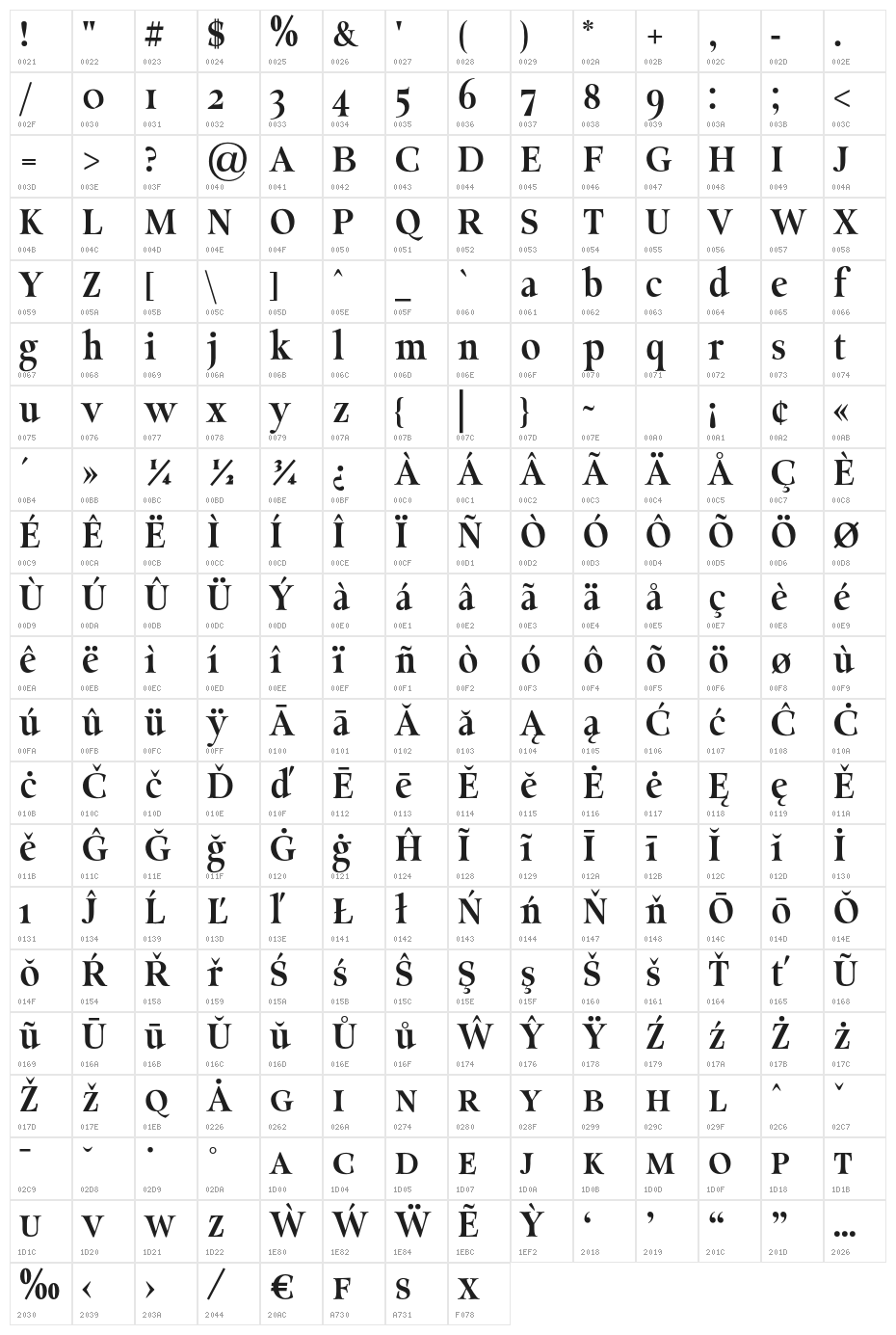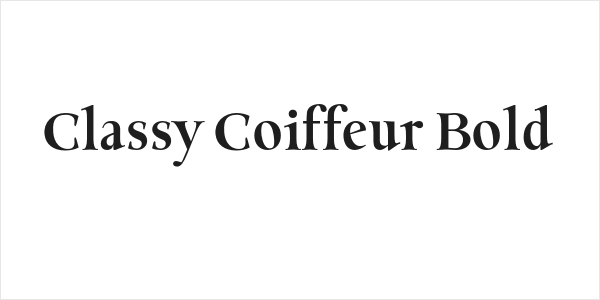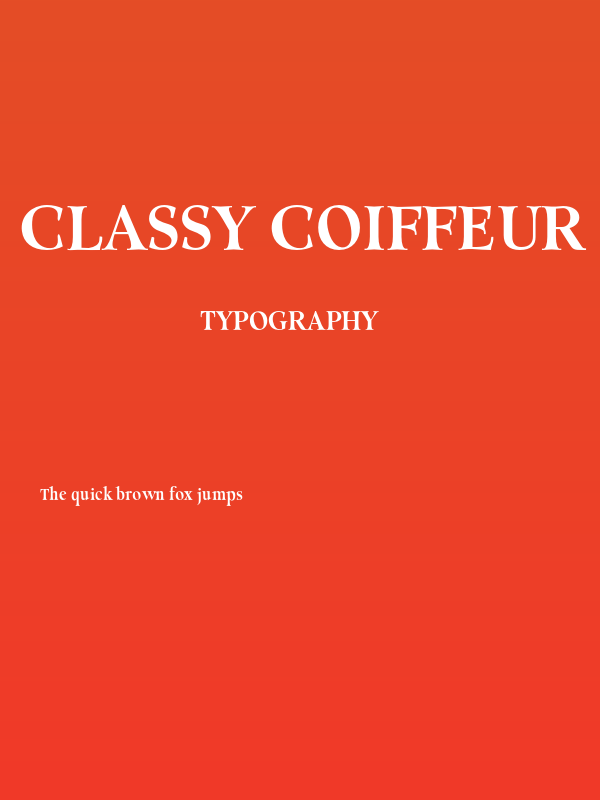
Classy Coiffeur Bold Font
Classy Coiffeur Bold Description
This font features a bold and elegant serif style, characterized by its strong and pronounced strokes. The uppercase letters exhibit a classic and authoritative presence, while the lowercase letters maintain a refined and sophisticated look. The numerals are clear and robust, ensuring readability. Special characters are designed with the same attention to detail, offering a cohesive appearance across all glyphs. The overall design is both timeless and versatile, suitable for a variety of applications where a touch of class and boldness is desired.
| Proposed Projects | Ideal for luxury branding, editorial design, book covers, and high-end packaging. |